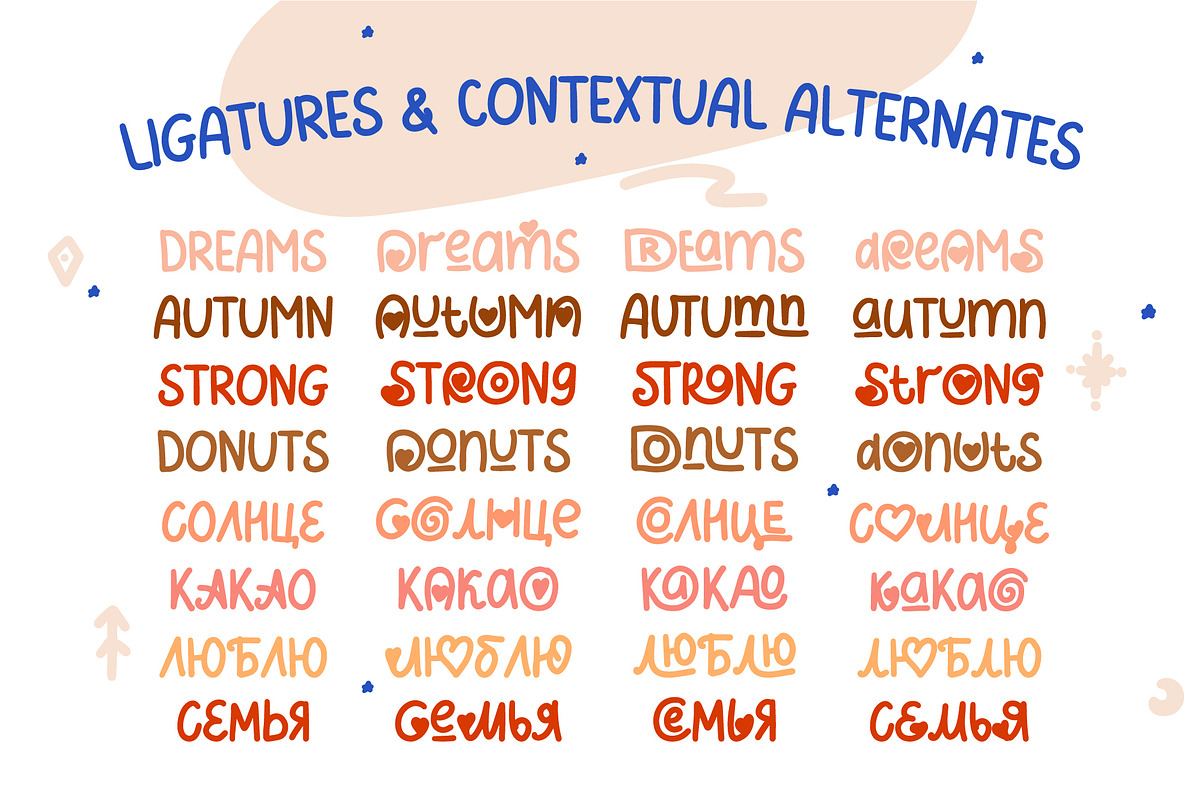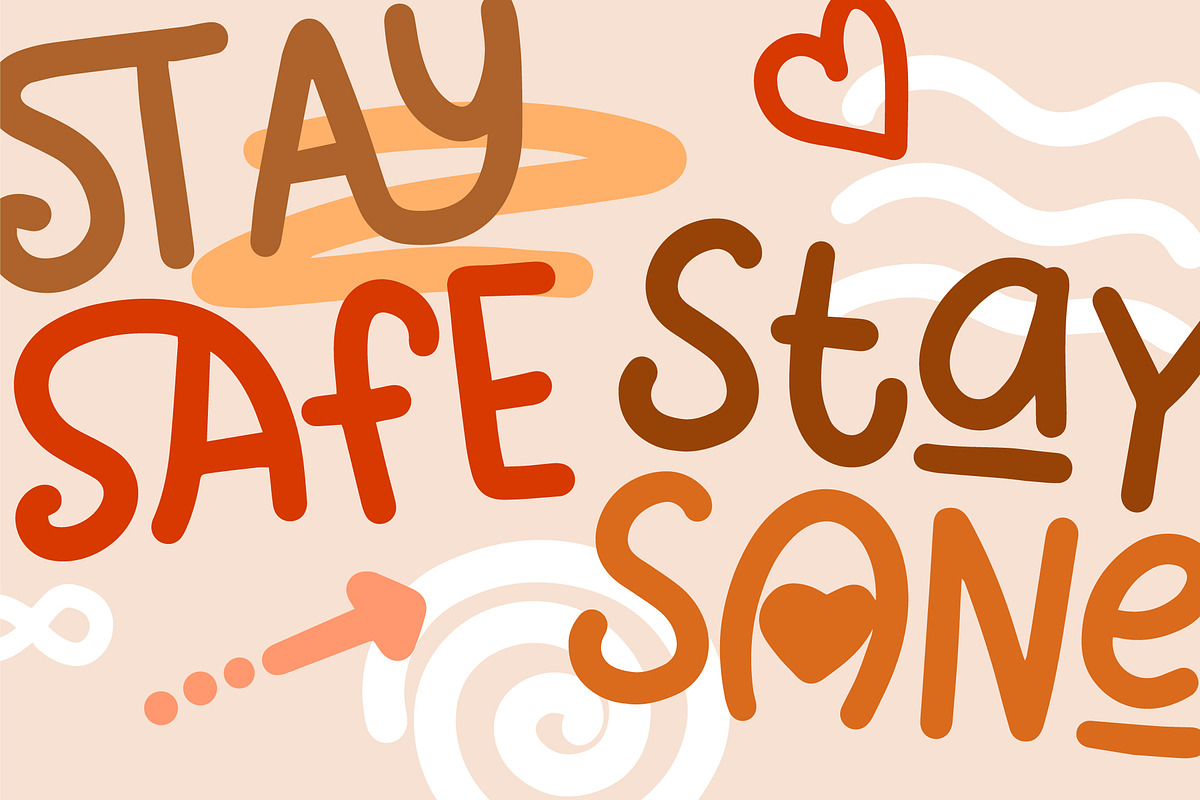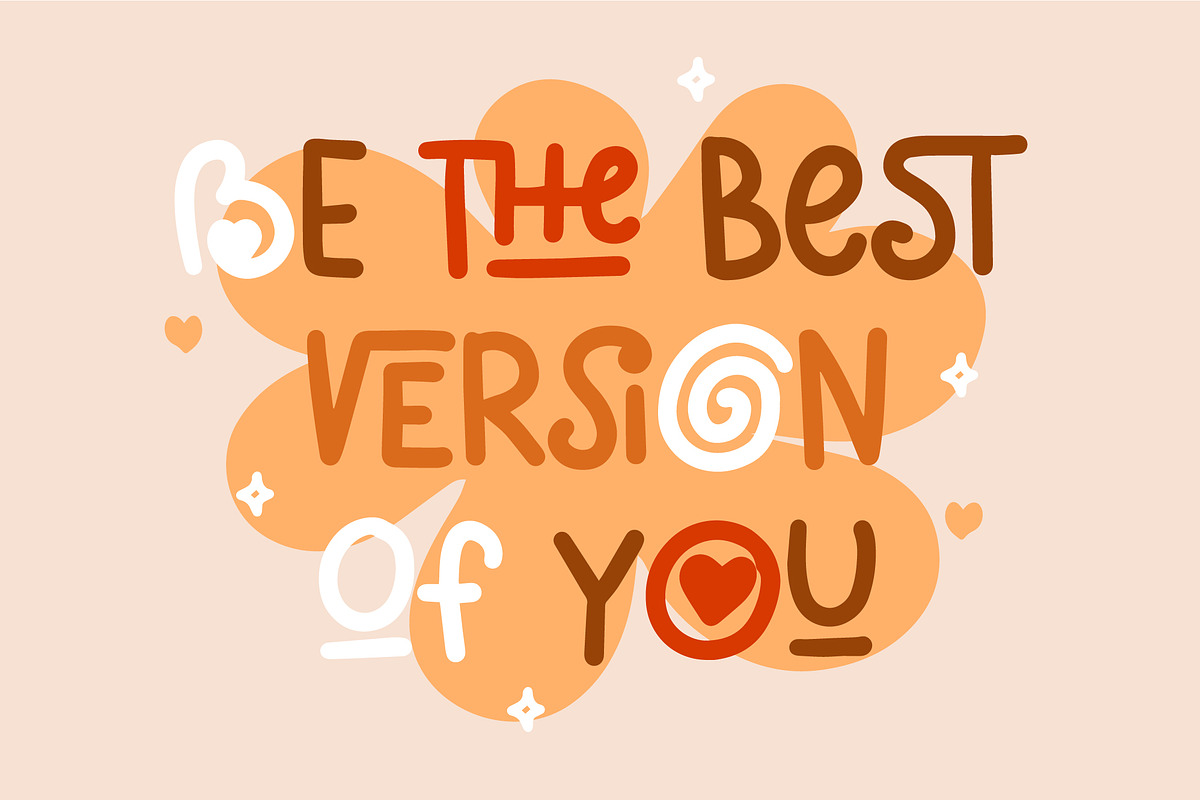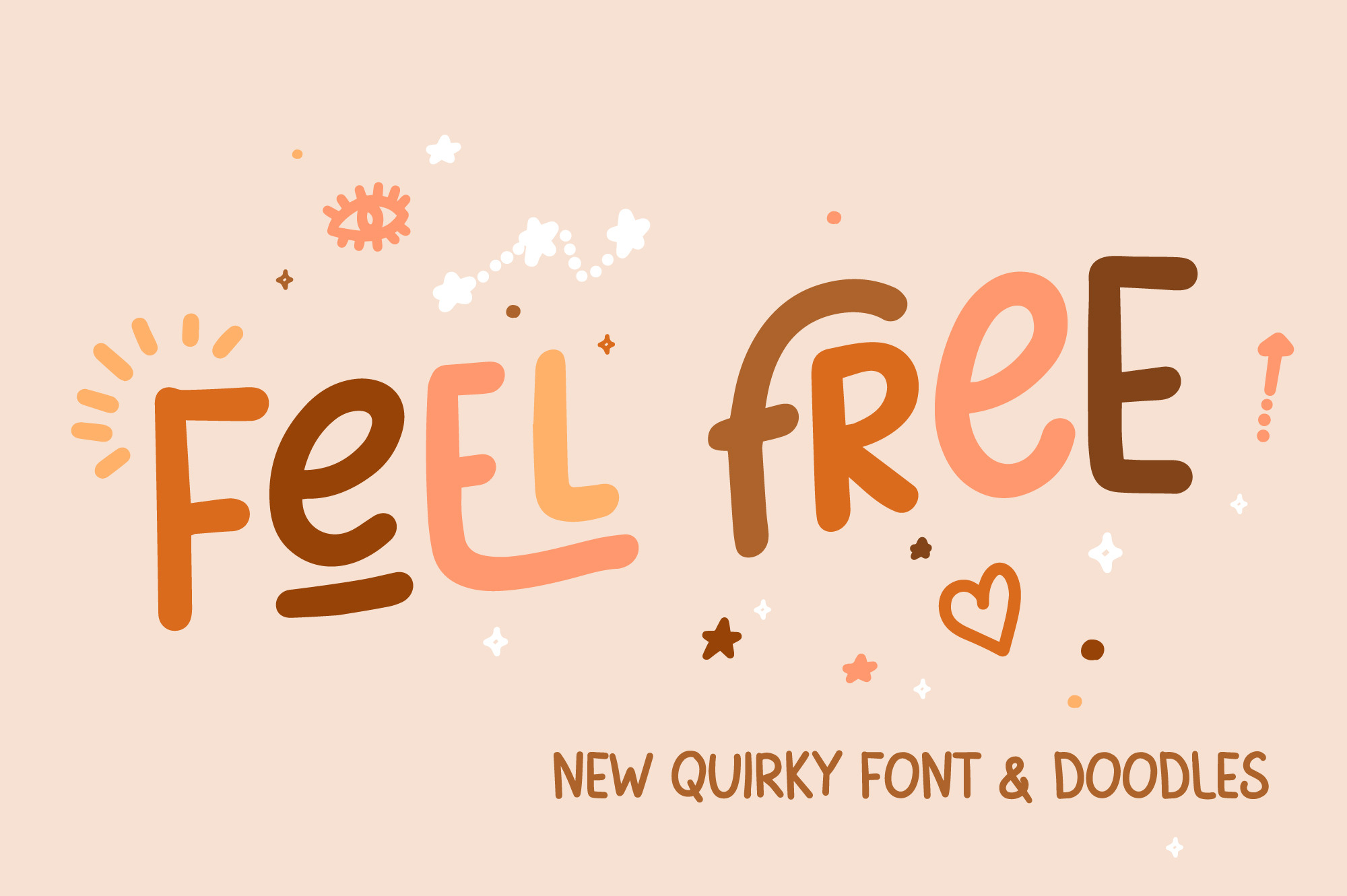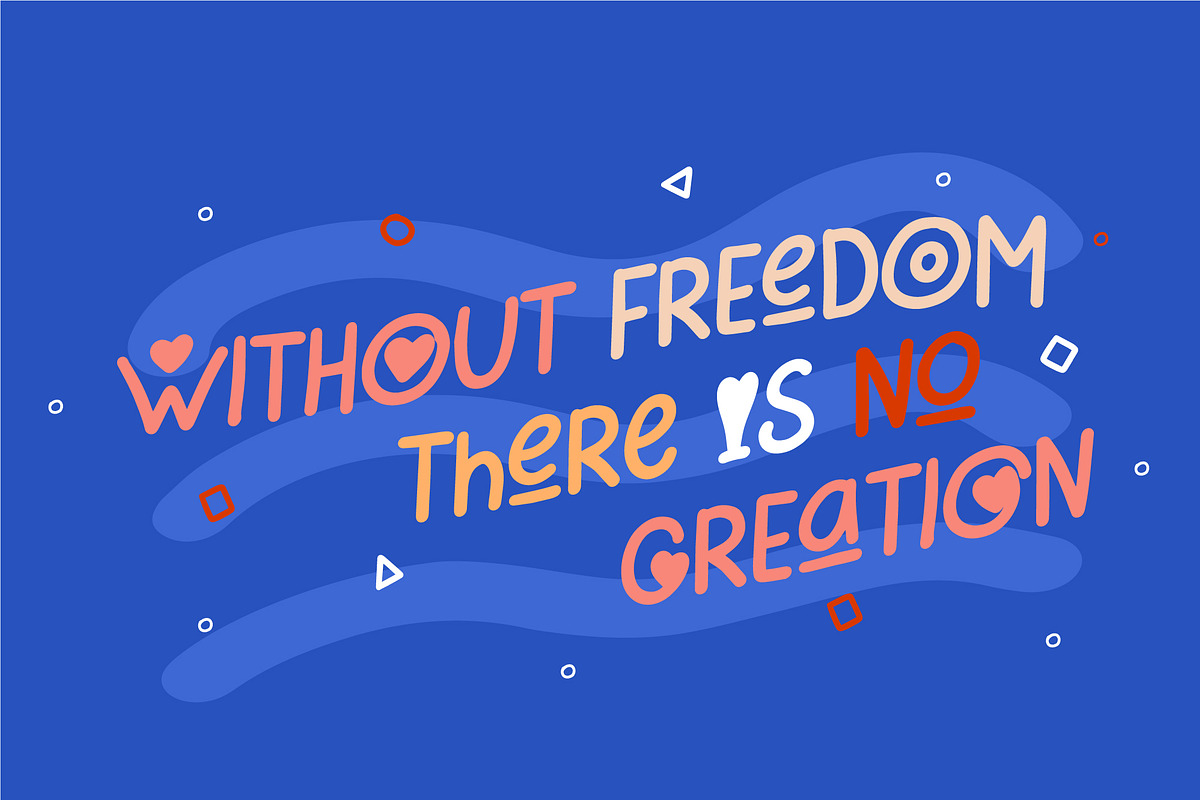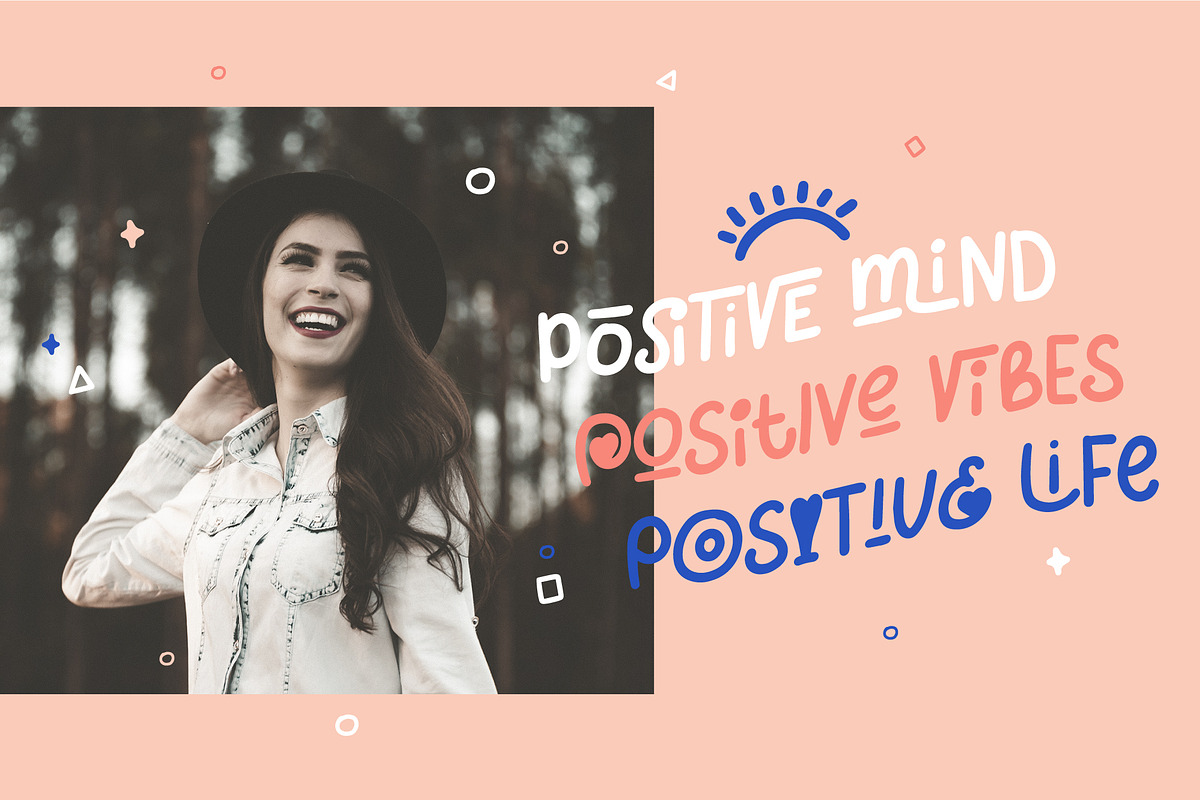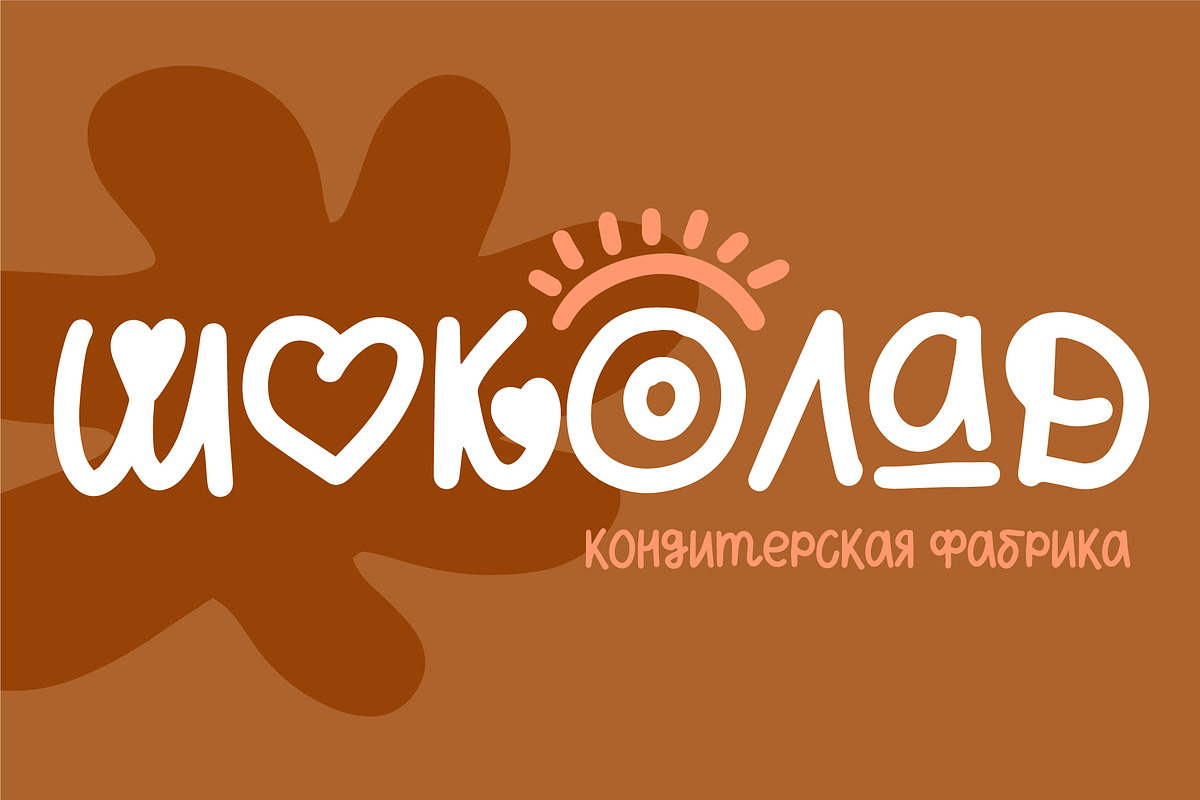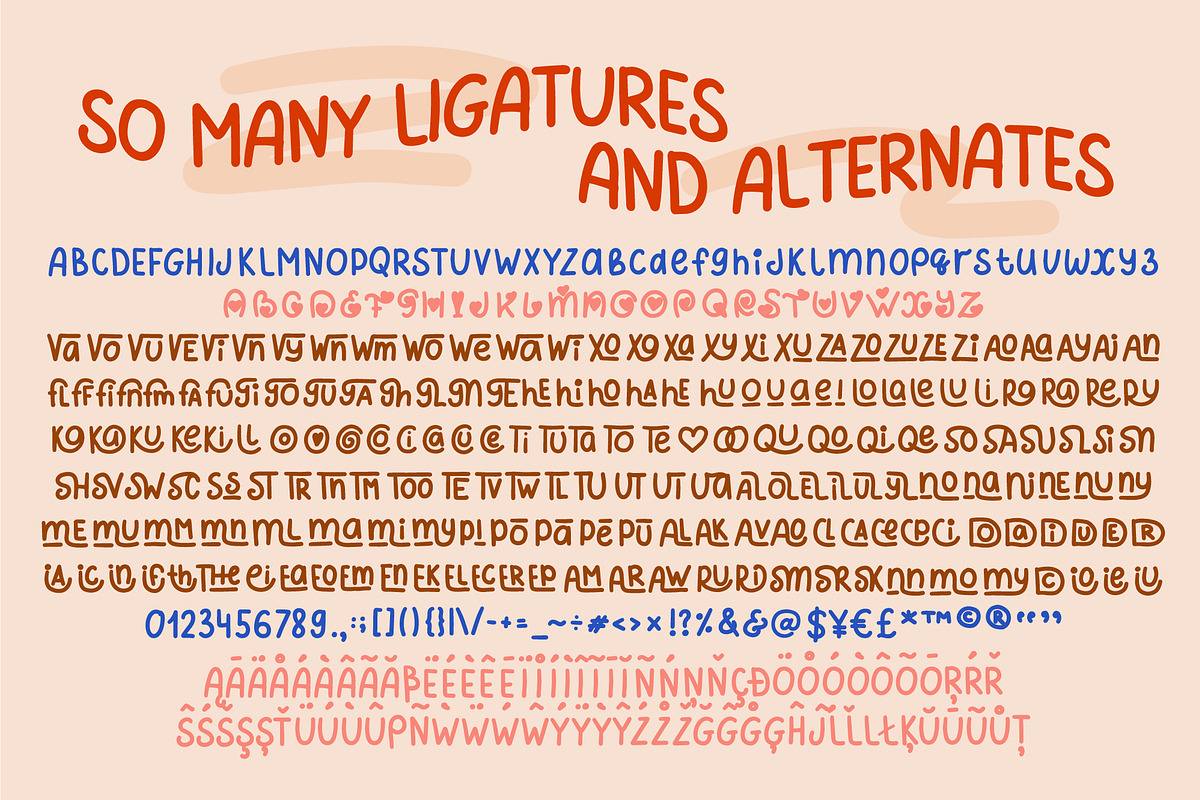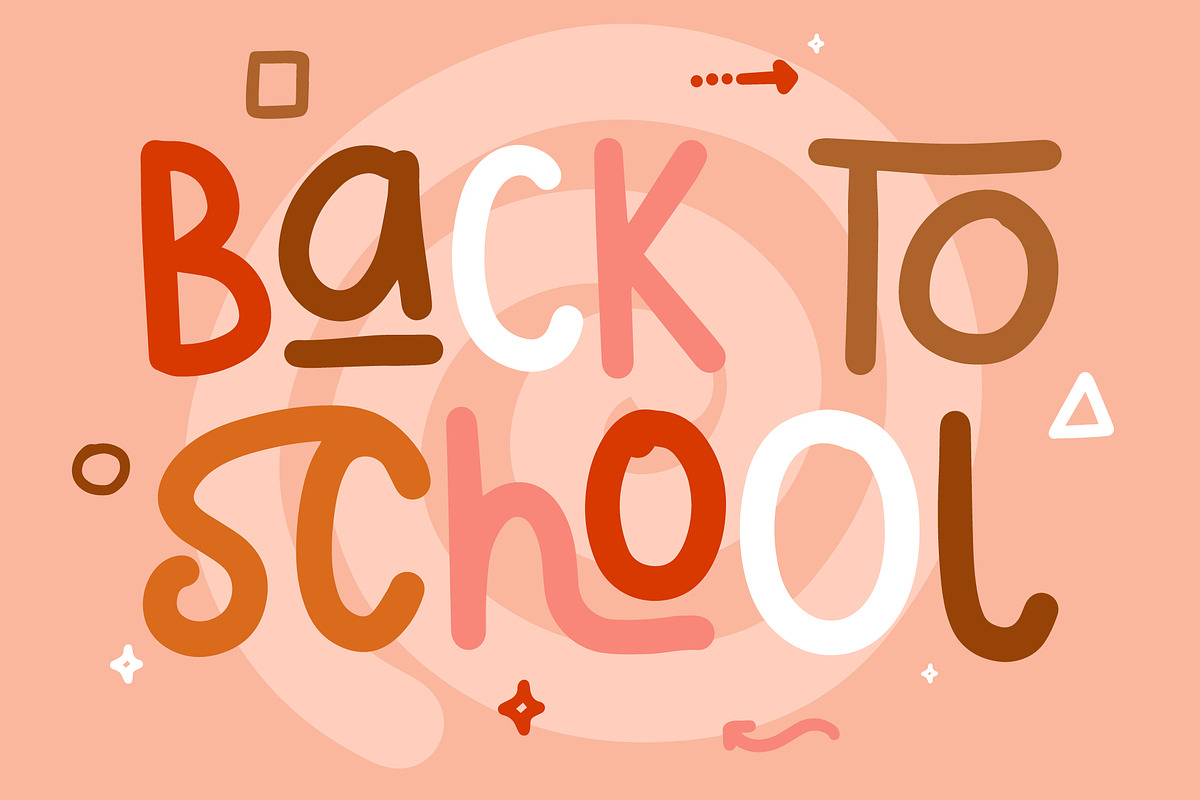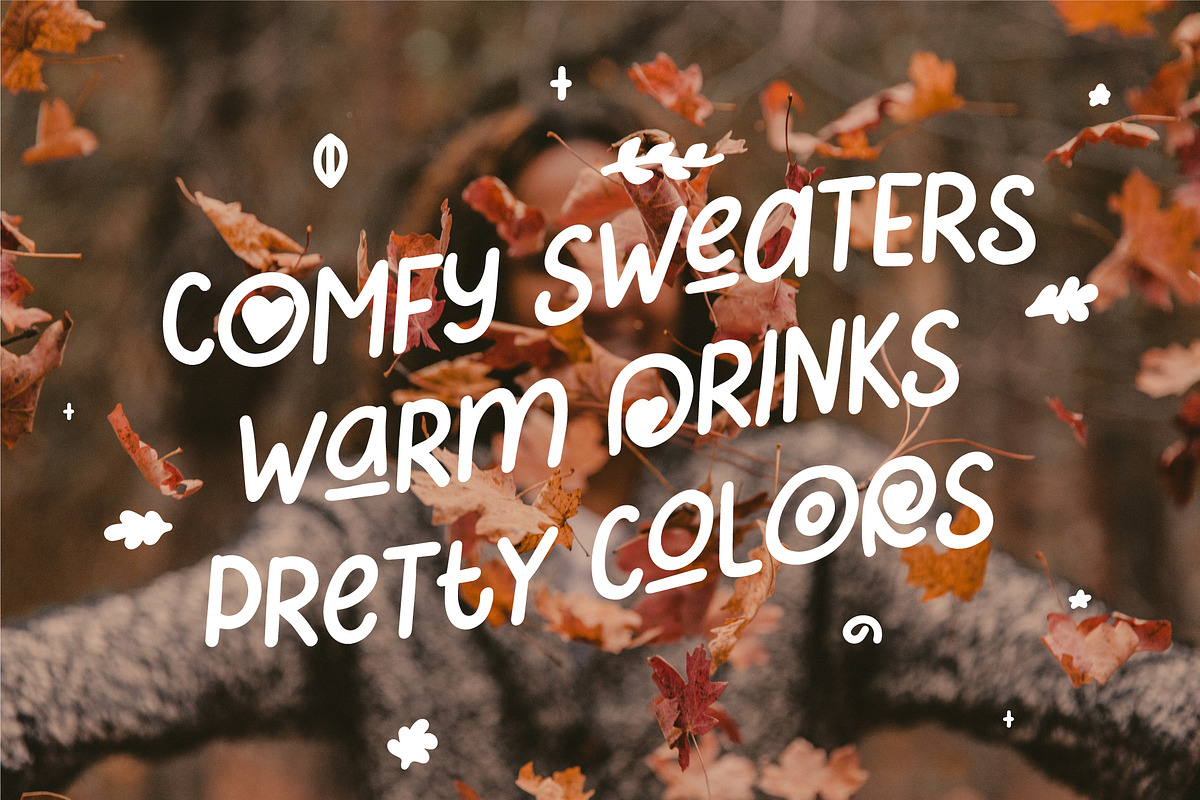
Feel Free Playful Font
FEEL FREE is sweet, unexpected, playful font. It is perfect for creating handwritten quotes and graphics. This font puts a smile on your projects and will inspire you to create something fun and memorable. It is perfect for headings, flyer, greeting cards, product packaging, book cover, printed quotes, logotype, apparel design, album covers, etc.
Enjoy using FEEL FREE font and create special and touching typographical design for scandinavian or childish projects, for every day or the happiest day in life.
This font will easily help you to make your projects cosy, funny, truly hand-painted realistic and natural.
FEEL FREE font has uppercase letters, lots of ligatures and alternates, hand-drawn extras, designed to add hand-made look to this font, numbers & basic punctuation, Cyrillic and multiligual support (French, German, Italian, Norwegian, Portuguese, Spanish, Swedish, Swiss, German).